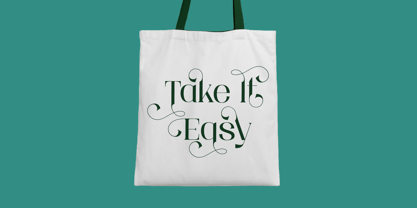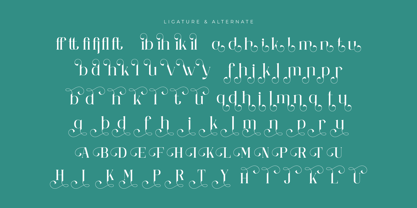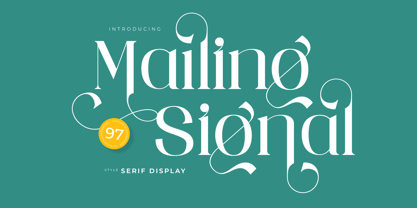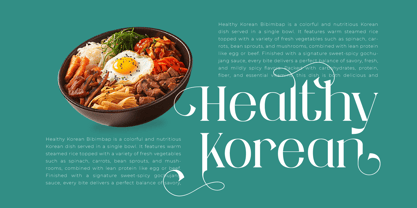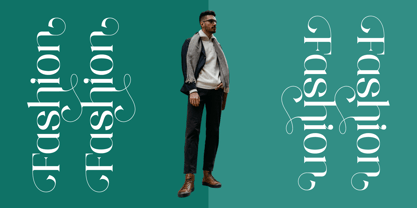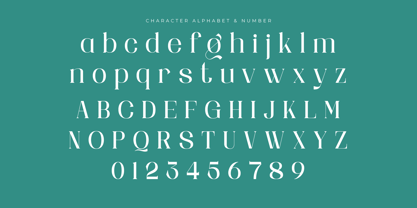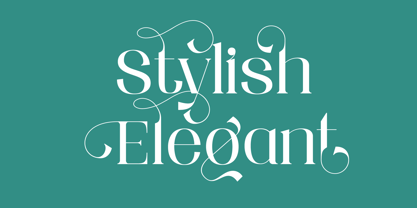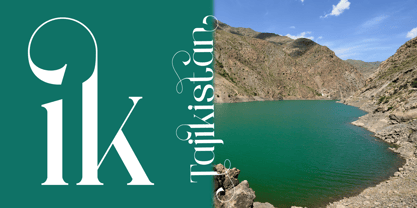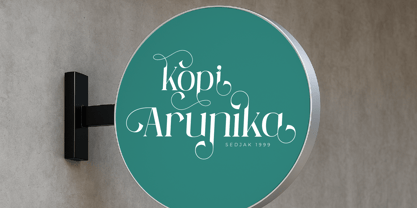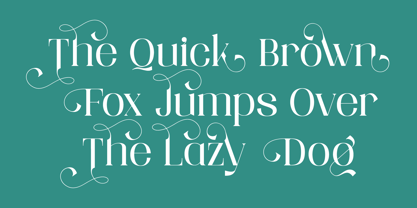
Mailing Signal
by Risma Type
The Mailing Signal Font Family was designed by Risma Mulyasari and published by Risma Type. Mailing Signal contains 2 styles and family package options.
Mailing Signal
Category: Serif Display Typeface
Tagline: Elegant | Bold | Artistic | Timeless
Where Classic Elegance Meets Modern Display
Searching for a typeface that brings together timeless serif sophistication with a contemporary edge?
Introducing Mailing Signal, a Serif Display font designed to command attention with its sharp serifs, striking contrasts, and refined proportions. Perfect for projects that require a sense of heritage,
confidence, and artistic flair, Mailing Signal delivers impact while staying beautifully legible.
Key Features
• High-contrast strokes with refined serif details
• Uppercase & lowercase set with strong display presence
• Stylistic alternates and elegant ligatures
• Multilingual support (Latin Extended with accented characters)
• Optimized for editorial, branding, and large-format print
Perfect For
• Editorial layouts, magazine headlines, and book covers
• Luxury branding, fashion identity, and timeless packaging
• Cultural posters, exhibitions, and art-driven campaigns
• Statement logos, classy invitations, and monograms
• Cinematic titles and striking promotional materials
Mailing Signal embodies classic serif elegance infused with modern artistry — a design-forward typeface that elevates every creative project with confidence and timeless char